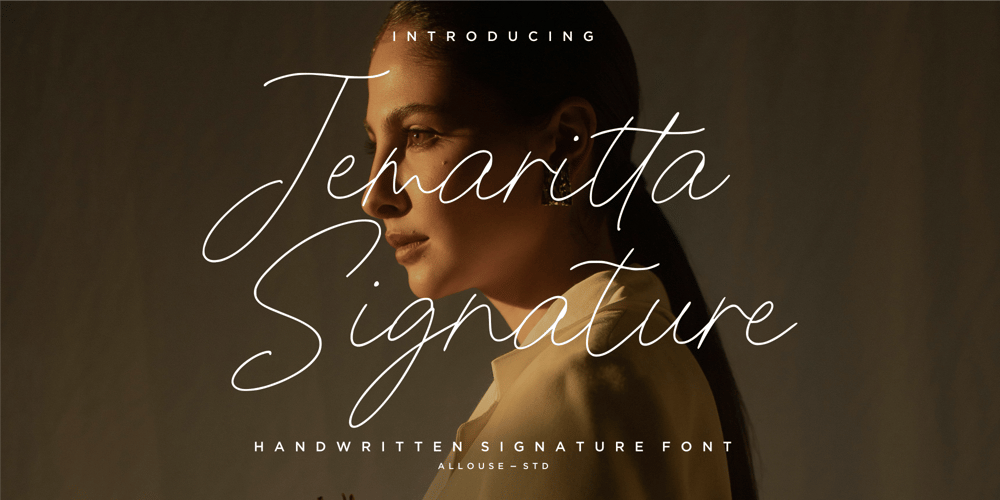
Jemaritta Signature Font Family was designed by Fachrizal Yusuf and published by Allouse Studio. Jemaritta Signature contains 1 styles and family package options. Proudly Present, Jemaritta Signature A Handwritten Signature FontJemaritta Signature is perfect for any titles, product packaging, branding project, megazine, social media, wedding, or just used to express words above the background.Jemaritta Signature also come with multilingual support.Enjoy the font, feel free to comment or feedback, send me PM or email.